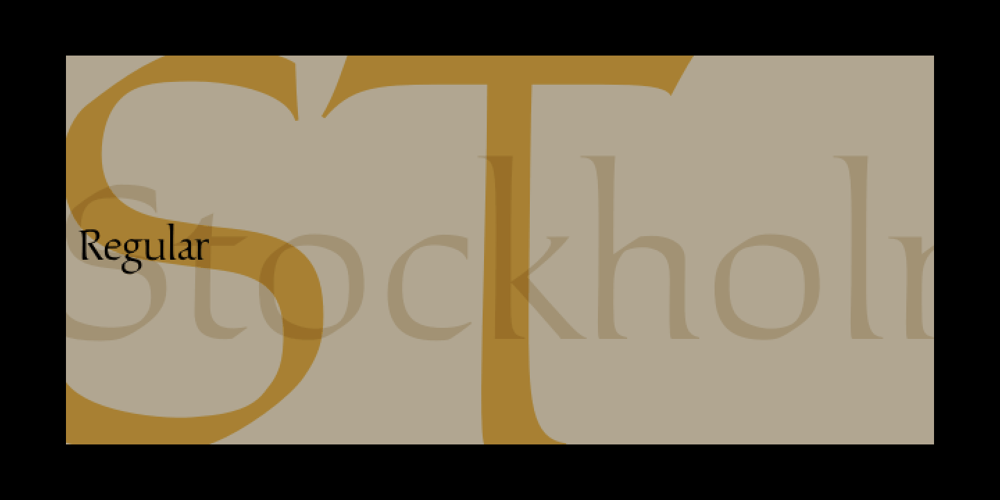
Stockholm LP
Stockholm LP font
Stockholm LP Font Family was designed by Garrett Boge, Paul Shaw and published by LetterPerfect. Stockholm LP contains 1 styles and family package options. Stockholm is a contemporary roman typeface designed by Paul Shaw in collaboration with Garrett Boge in 1998. Its strong yet refined roman character shapes were inspired by twentieth century Swedish lettering. The face is appropriate for both text and display settings. Stockholm is part of the LetterPerfect Swedish Set